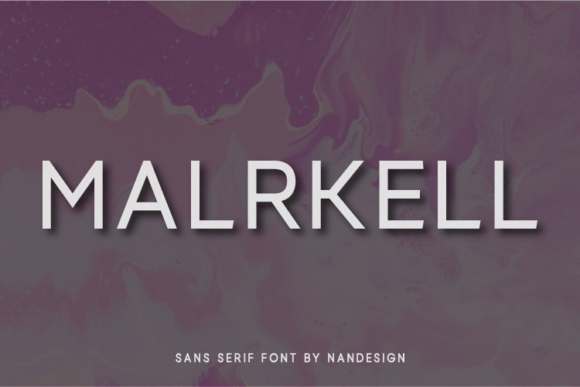
Introducing Malrkell Font: The Gateway to Modern Design Elegance
In the realm of digital artistry, where fonts hold the power to transform ideas into captivating expressions, Malrkell Font emerges as a radiant gem. This sans serif masterpiece, meticulously crafted by the renowned Nan Design, is more than just a collection of letters and symbols—it's an open invitation to embark on a design journey like no other.
Unleash the boundless potential of Malrkell Font and let your imagination run wild. Whether you're a seasoned designer seeking to elevate your projects or a budding enthusiast渴望ing to make your mark, Malrkell Font is your trusted companion, ready to ignite your creativity and bring your visions to life.
Immerse yourself in the allure of Malrkell Font's clean lines and crisp curves. Its minimalist aesthetic exudes a timeless elegance that effortlessly complements any design concept. From sleek and sophisticated logos to captivating website layouts, Malrkell Font seamlessly adapts to your creative endeavors, adding a touch of understated refinement.
But Malrkell Font's allure extends beyond its visual appeal. Its versatility is simply breathtaking, allowing you to effortlessly glide from one design genre to another. Whether you're crafting an eye-catching poster, a captivating social media campaign, or an informative brochure, Malrkell Font seamlessly adapts, becoming an integral part of your creative tapestry.
Experience the joy of effortless readability with Malrkell Font. Its carefully crafted letterforms ensure that your message is conveyed with clarity and impact, leaving an indelible mark on your audience. Each character is meticulously designed to strike the perfect balance between form and function, ensuring that your words are not just read but felt.
With Malrkell Font by your side, you're not just designing—you're evoking emotions, crafting experiences, and leaving a lasting impression. Its timeless elegance and boundless versatility make it the font of choice for those who dare to dream big and leave their mark on the world.
So why settle for ordinary when you can embrace the extraordinary? Embrace Malrkell Font today and unlock the gateway to a world of design possibilities. Let your creativity soar, let your ideas take shape, and let Malrkell Font be your guiding light on this extraordinary journey.